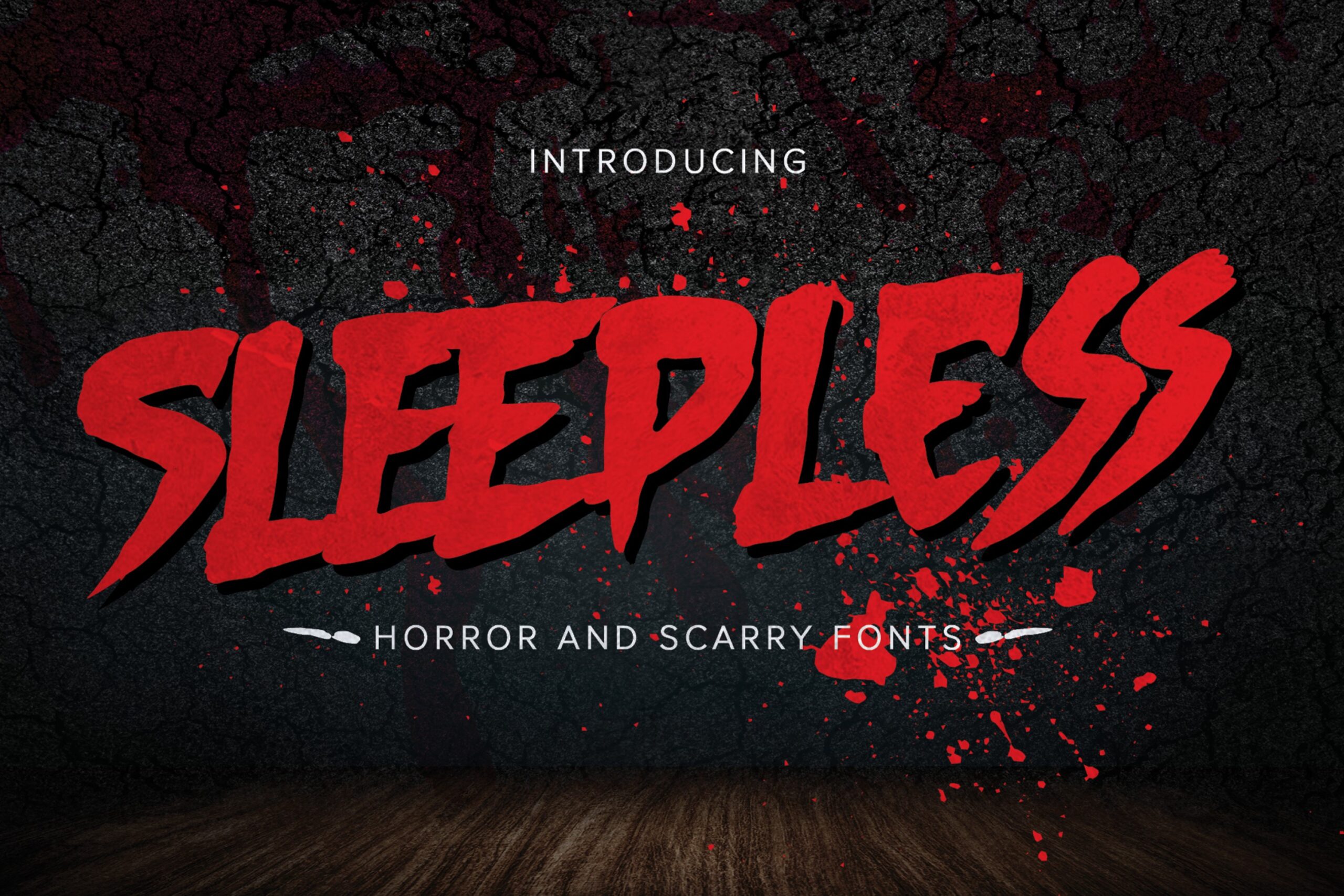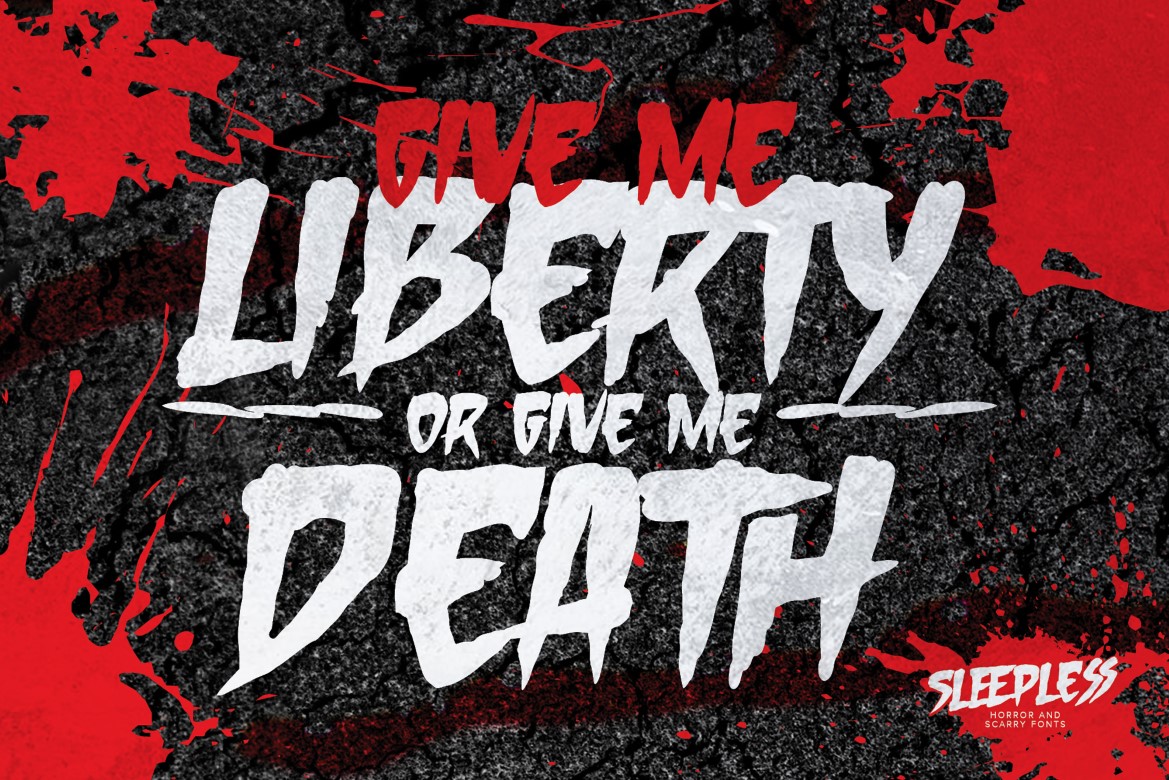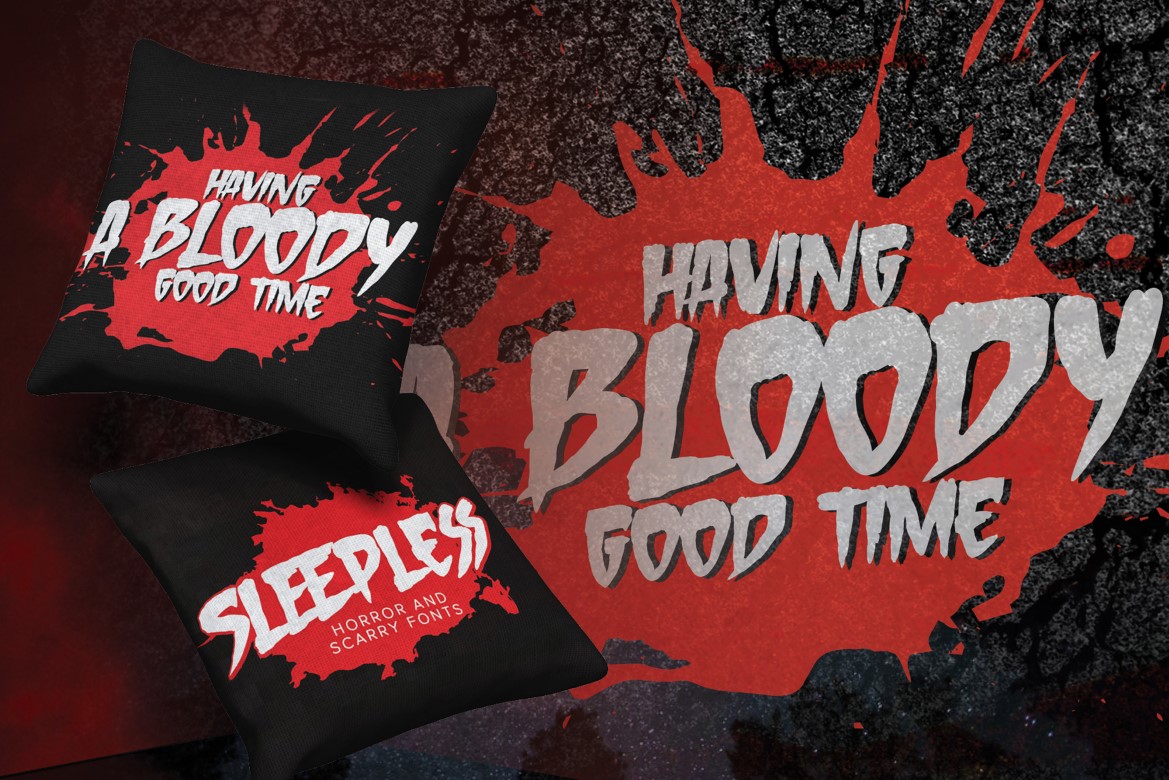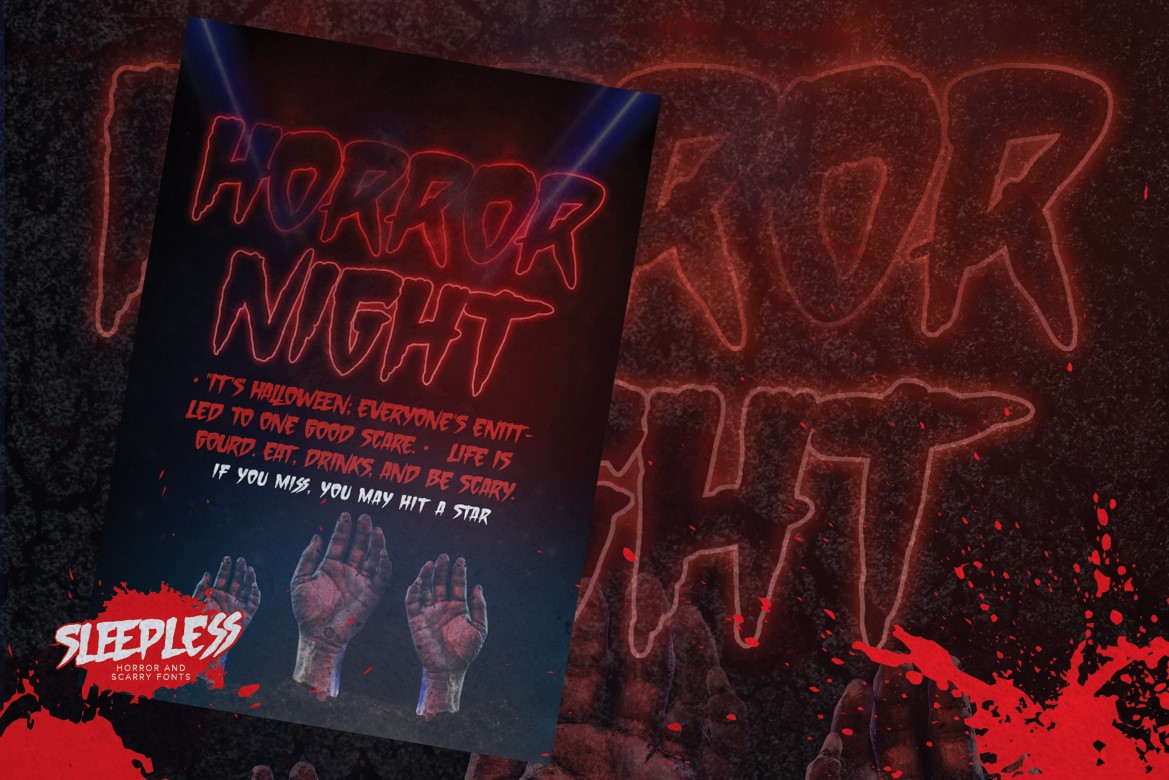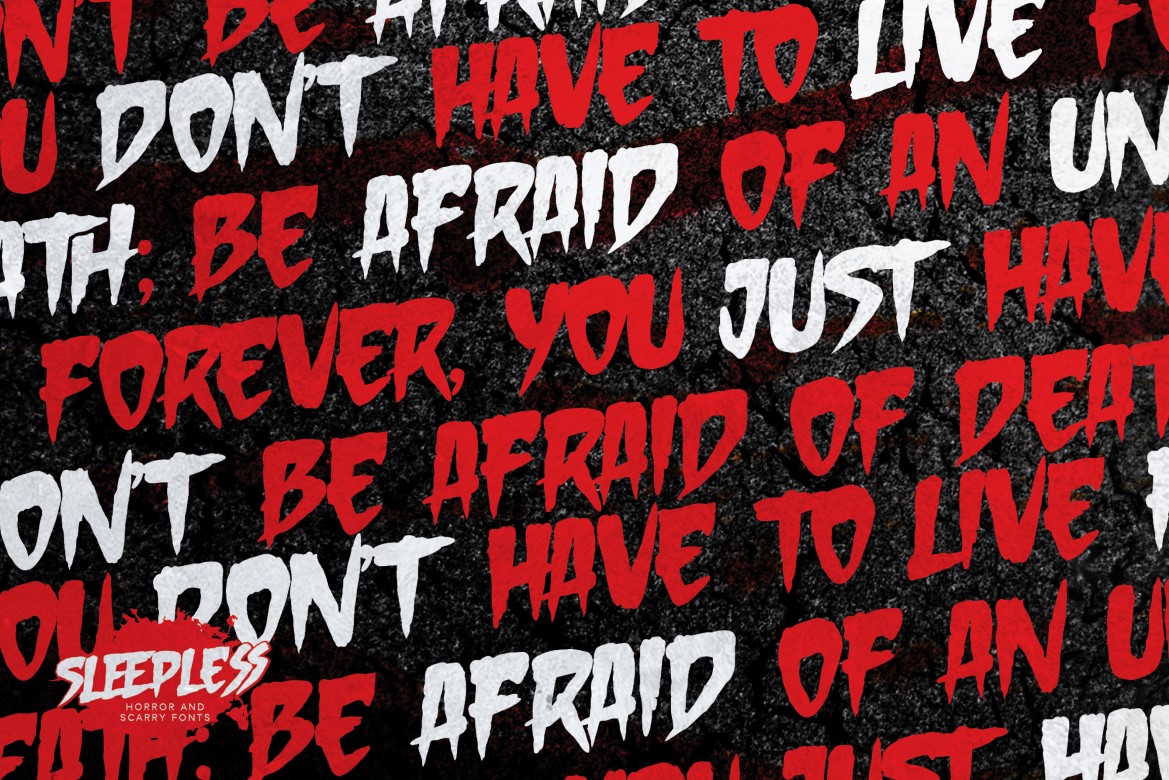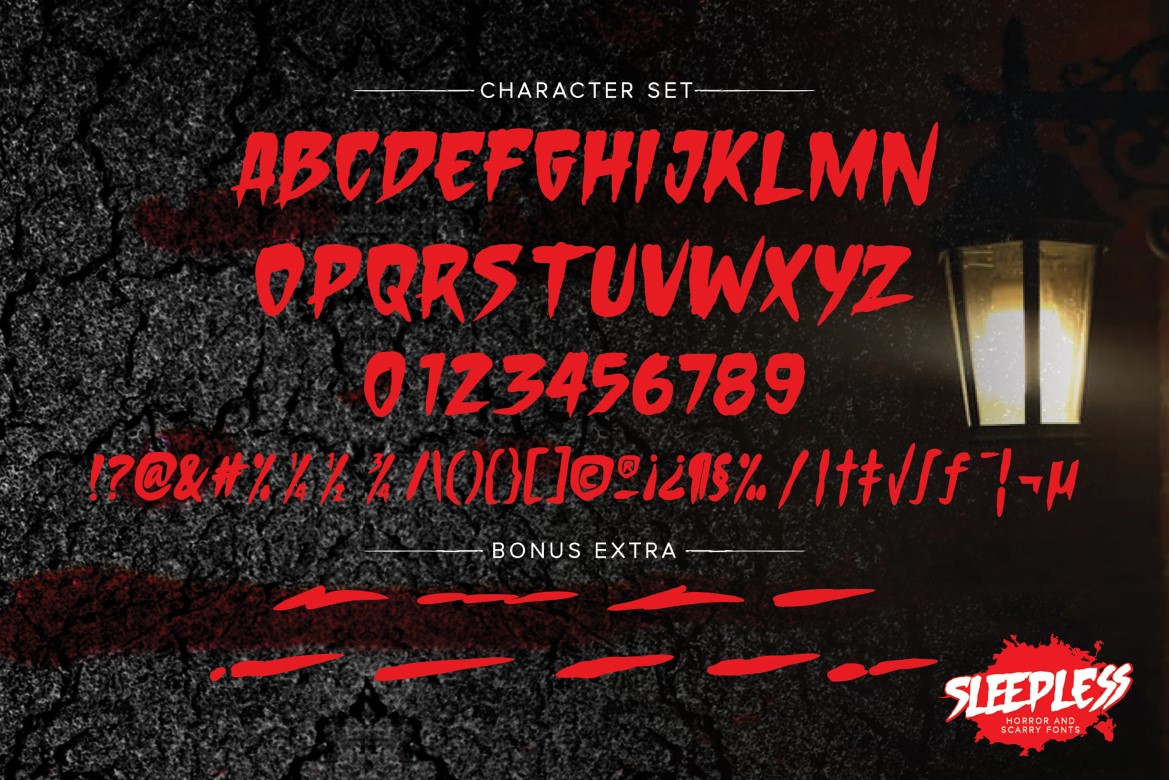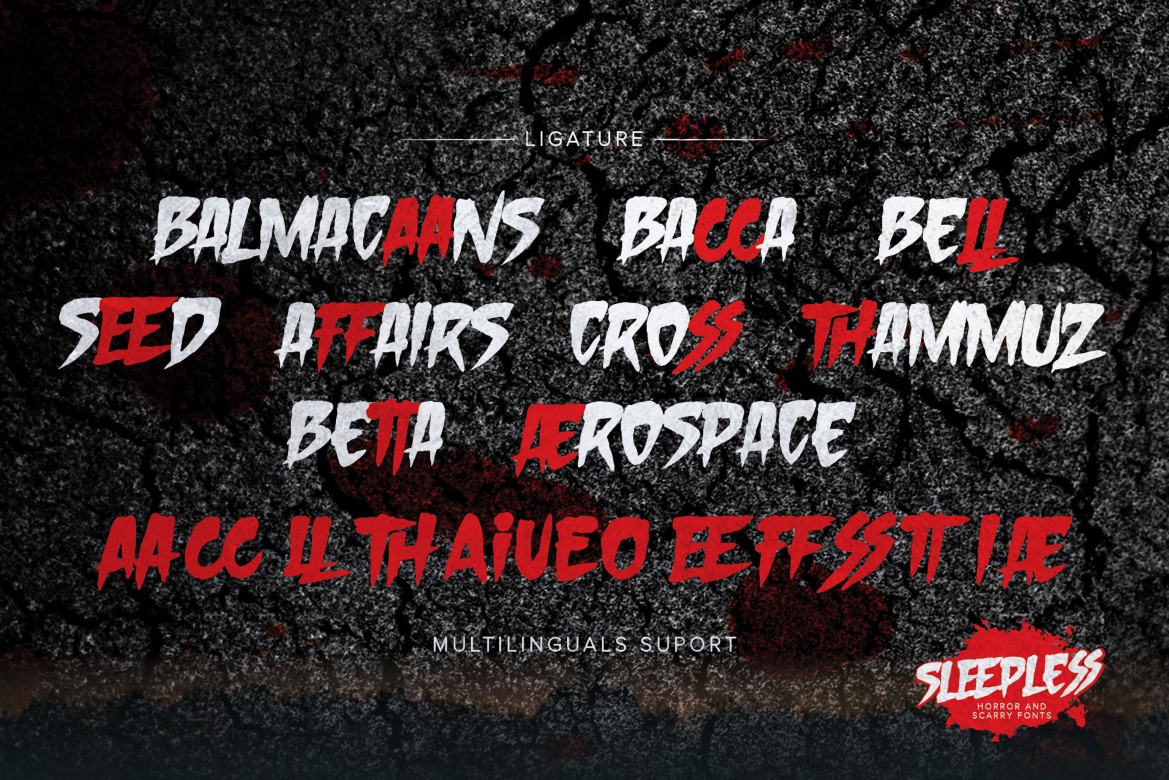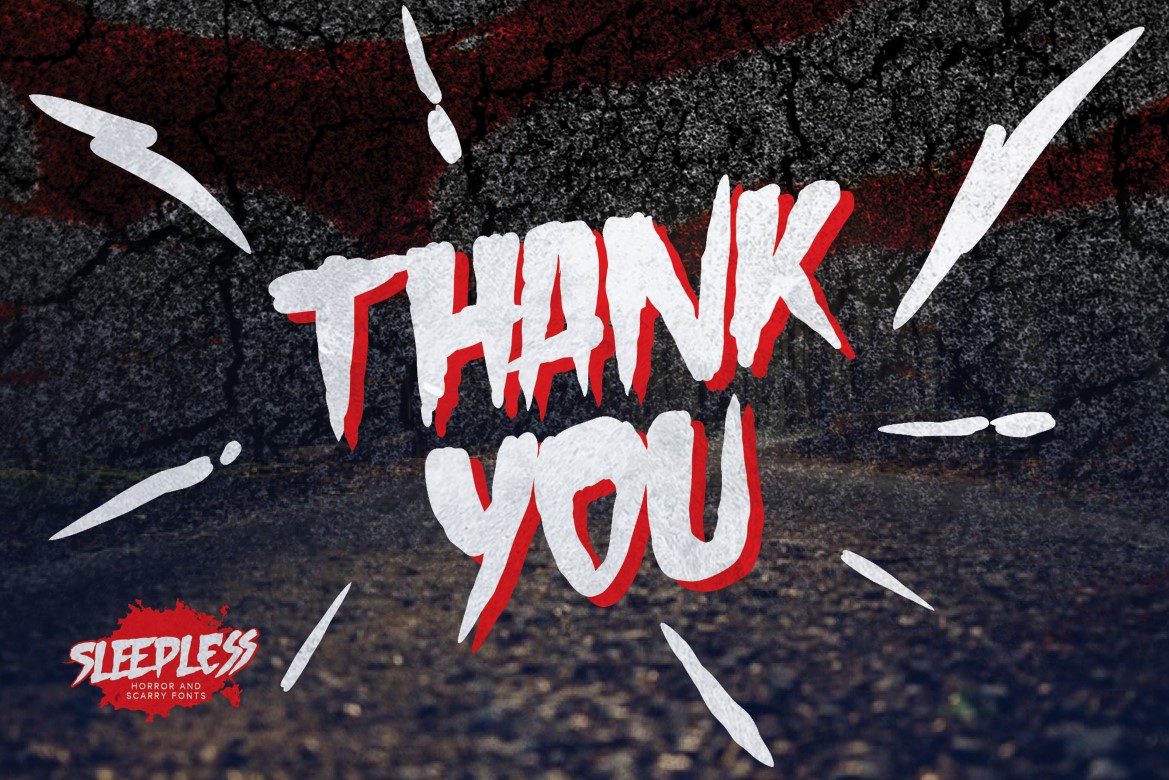
Sleepless – Hand Drawn Horror And Scarry Brush font is an Authentic brush Font that is written casually and quickly.
That is why Sleepless has a authentic, and strong characteristic more natural look.
Sleepless Perfect for designs, branding projects, Logo design,Quotes product packaging and another Project that require cool strong brush font.